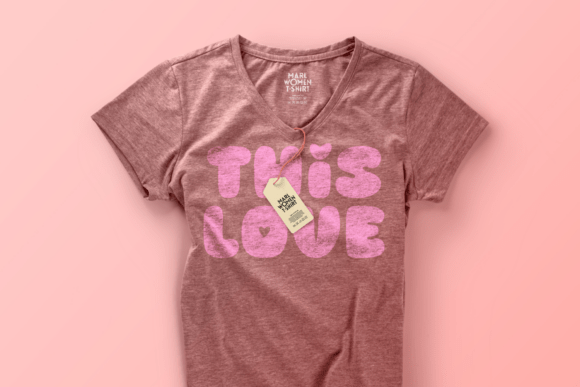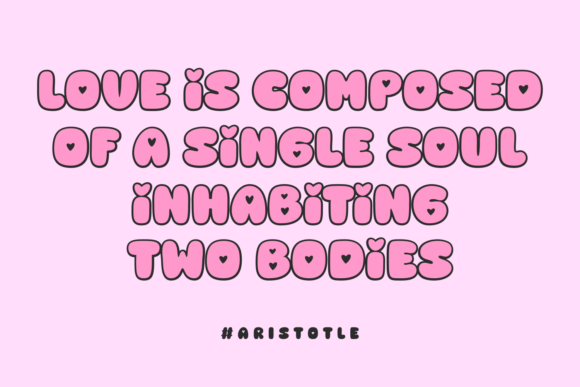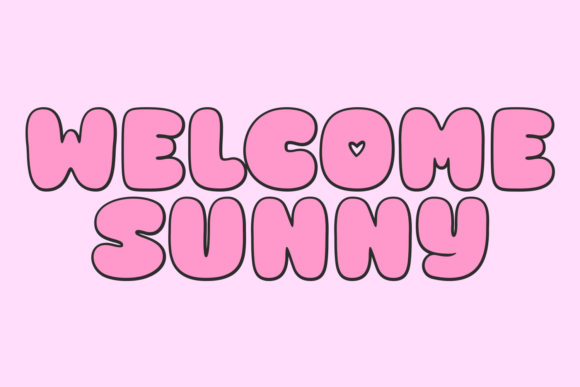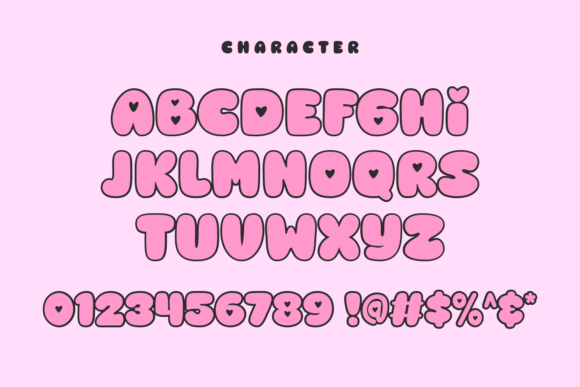
Cute Belle Font: Spreading Joy One Letter at a Time
Who hasn’t felt the rush of excitement when creating something that brings a smile to a child’s face? Whether it’s designing a birthday card, crafting a personalized gift, or even just doodling in a notebook, there’s something special about infusing our work with a sense of whimsy and delight. For designers looking to tap into that magic, the Cute Belle Font is the perfect tool to add a dash of charm to their projects.
With its rounded, plush letterforms and heart accents, Cute Belle Font is designed to spread joy and charm wherever it goes. From children’s projects to kawaii branding, this typeface is ideal for anyone looking to add a touch of sweetness to their designs. As a valuable resource for designers, Cute Belle Font offers a unique opportunity to connect with audiences on a deeper level, creating memorable experiences that linger long after the initial glance.
- Unique Characteristics: The font features a distinctive, hand-drawn style with subtle imperfections, giving it a charming and whimsical feel.
Cute Belle Font Review
I recently had the chance to work with the Cute Belle font, and I must say it’s a lovely addition to any design project. Here are some things that I think work well:
- ✨ The font’s feminine touch is perfect for projects targeting a younger audience or those with a playful vibe. It adds a touch of whimsy and innocence.
- ✨ The letterforms are well-designed, making it easy to read and recognize, even at smaller font sizes.
- ✨ The font family is quite extensive, with various weights and styles to choose from, making it easy to find the perfect match for your design needs.
- ⚠️ The font might not be the best choice for projects that require a more professional or formal tone, as its playful nature might clash with the message.
- ⚠️ Some characters, like the lowercase ‘a’ and ‘e’, might not be as legible at very small font sizes, which could be a concern for projects with tight design constraints.
Overall, I think Cute Belle is a great choice for designers looking to add a touch of playfulness to their projects. While it might not be suitable for every design need, it’s definitely a great addition to any font collection.
To get the most out of the Cute Belle font, try the following:
- Pair the font with bold, sans-serif fonts for contrast.
- Use the font in combination with illustrations or graphics for a playful look.
The Cute Belle font is ideal for:
- Children’s book illustrations and design.
- Wedding
Alternatives to Cute Belle Font
Great Vibes is a beautiful, elegant script font perfect for creating a whimsical and romantic atmosphere. It is ideal for wedding invitations, greeting cards, and any other design that requires a touch of sophistication and elegance. Compared to Cute Belle Font, Great Vibes Font is more refined and has a more classical feel.
Lovely Script Font
Lovely Script Font is a modern, elegant script font that is perfect for creating a sense of luxury and sophistication. It is ideal for high-end branding, packaging, and advertising designs. Compared to Cute Belle Font, Lovely Script Font is more modern and has a more polished look.
Carolyna Pro is a stylish, elegant script font that is perfect for creating a sense of elegance and sophistication. It is ideal for wedding invitations, branding, and any other design that requires a touch of luxury and refinement. Compared to Cute Belle Font, Carolyna Pro is more sophisticated and has a more refined look.
Q: What is the recommended font size for optimal readability with the Cute Belle Font?
The recommended font size for optimal readability with the Cute Belle Font is between 12-18 points. However, this may vary depending on the specific design application, intended audience, and screen resolution.
Q: Does the Cute Belle Font support multilingual typing?
Yes, the Cute Belle Font supports a wide range of languages, including Latin, Cyrillic, and Greek scripts. However, please note that some languages may require additional font features or configurations to function correctly.